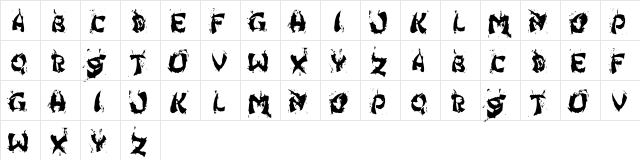
Hong Kong Fist Fuck Regular
Design Context for Hong Kong Fist Fuck Typeface
Hong Kong Fist Fuck is a composed and adaptable typeface that performs quietly and consistently across a wide range of design contexts.